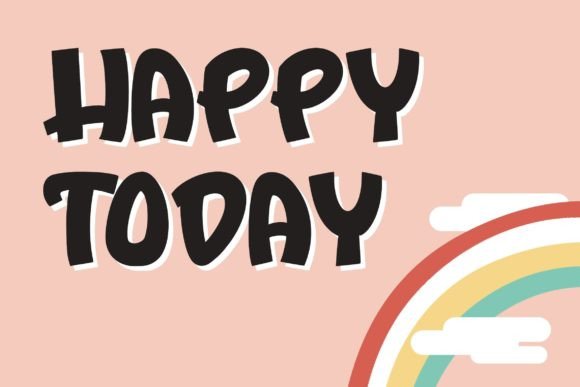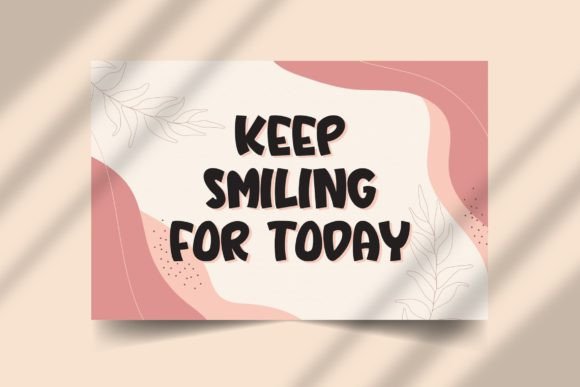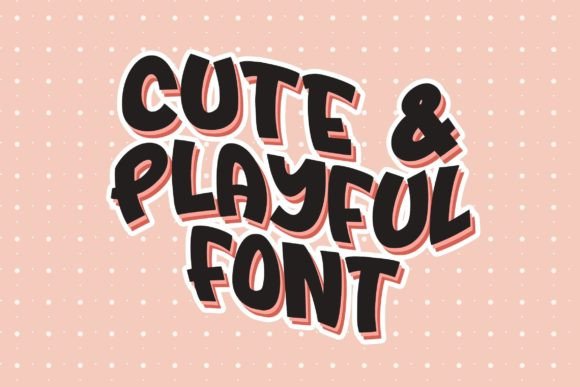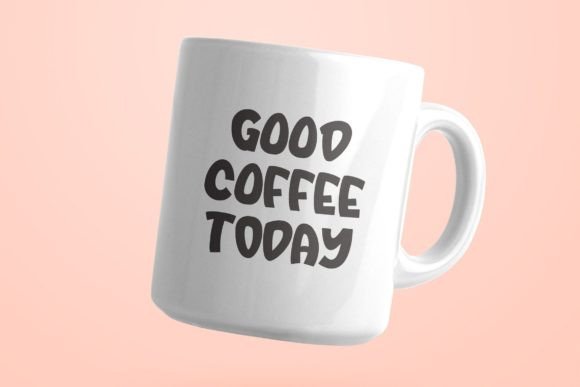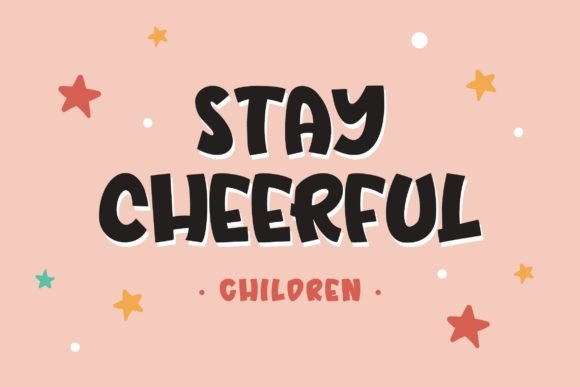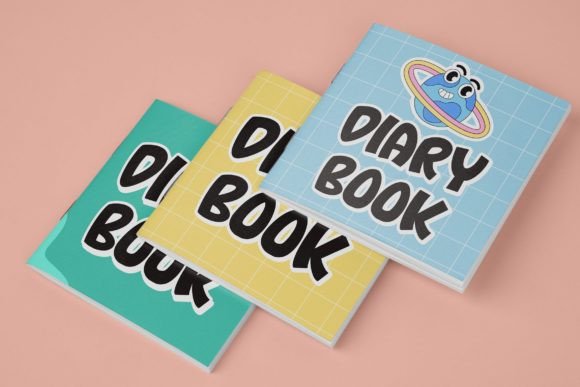
Introducing Cheering Mood Font: The Perfect Addition to Your Design Projects
Are you tired of using the same old fonts for your design projects? Do you want to add a touch of personality and whimsy to your branding, wedding designs, or social media posts? Look no further than Cheering Mood Font, a cute, distinctive, and playful display font that’s perfect for a wide range of creative projects.
What Makes Cheering Mood Font So Special?
Cheering Mood Font is a beautifully crafted font that’s designed to add a touch of charm and elegance to your designs. Its unique and playful style makes it perfect for a variety of projects, including branding projects, logos, wedding designs, media posts, advertisements, product packaging, product designs, labels, photography, watermarks, invitations, stationery, and more.
Key Features of Cheering Mood Font
- Cute and Playful Style: Cheering Mood Font has a distinctive and playful style that’s sure to capture the attention of your audience.
- Wide Range of Uses: Cheering Mood Font is perfect for a wide range of design projects, from branding and logos to wedding designs and social media posts.
Cheering Mood Font is a must-have for designers and crafters who want to add a touch of personality and whimsy to their projects. Whether you’re creating branding materials, wedding designs, or social media posts, this font is sure to help you stand out from the crowd.
Tips and Tricks for Getting the Most Out of Cheering Mood Font
- Experiment with Different Sizes and Styles: Don’t be afraid to experiment with different sizes and styles to find the perfect look for your project.
- Use it in Combination with Other Fonts: Cheering Mood Font pairs well with a variety of other fonts, so don’t be afraid to get creative and try out different combinations.
Cheering Mood Font is a unique and playful display font that’s perfect for a wide range of design projects. Its cute and distinctive style, combined with its PUA encoding and wide range of uses, make it a must-have for designers and crafters. Whether you’re creating branding materials, wedding designs, or social media posts, Cheering Mood Font is sure to help you add a touch of personality and whimsy to your projects.